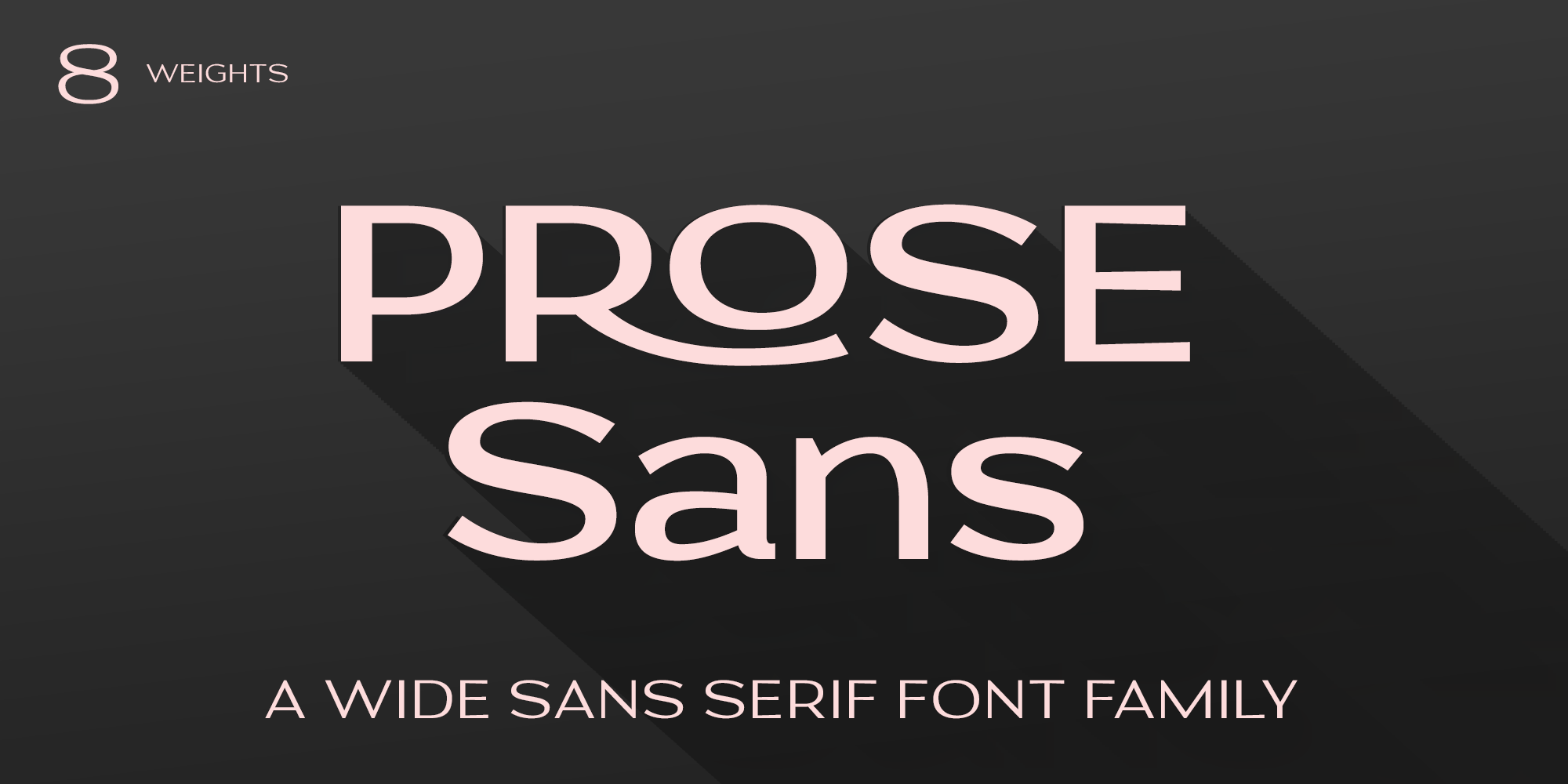
Prose Sans Font is perfect for literary magazine layouts, publishing house branding, editorial design projects, book cover typography, academic journal publications, newspaper headlines, creative writing workshops, author website designs, poetry collection covers, and any project requiring literary sophistication with readable elegance and scholarly communication excellence.
What makes Prose Sans Font exciting is its literary refinement and editorial sophistication that captures the intellectual beauty of written communication and the scholarly elegance of professional publishing. The typeface features clean, humanist letterforms with balanced proportions and subtle details that evoke the clarity of well-crafted prose and the sophisticated artistry of editorial design. Its scholarly character design speaks to audiences who appreciate literary excellence, intellectual discourse, and the transformative power of written language, making it perfect for publishing brands seeking to communicate credibility, readability, and the timeless appeal of quality literature and professional editorial standards.
Prose Sans Font family includes light, regular, medium, and bold weights with complete character sets featuring uppercase and lowercase letters, editorial-style numerals, scholarly punctuation marks, and literary decorative elements. The typeface incorporates humanist design principles and editorial typography techniques that enhance its readability while maintaining excellent legibility across all publishing applications and literary design projects.
Whether you're creating publishing brand identity, designing editorial layouts, or developing literary marketing materials, Prose Sans Font Free Download provides the perfect typographic foundation that honors literary tradition and editorial excellence. The font's scholarly appeal and literary character make it particularly effective for publishers, literary magazines, and educational institutions. Its editorial aesthetics translate beautifully across book designs, academic publications, and digital platforms, ensuring your brand communicates the kind of intellectual authority and literary sophistication that resonates with readers, writers, and scholars who appreciate the profound beauty and communicative power of well-designed typography in literary contexts.